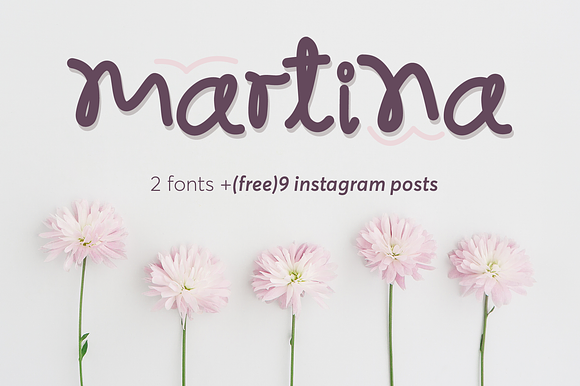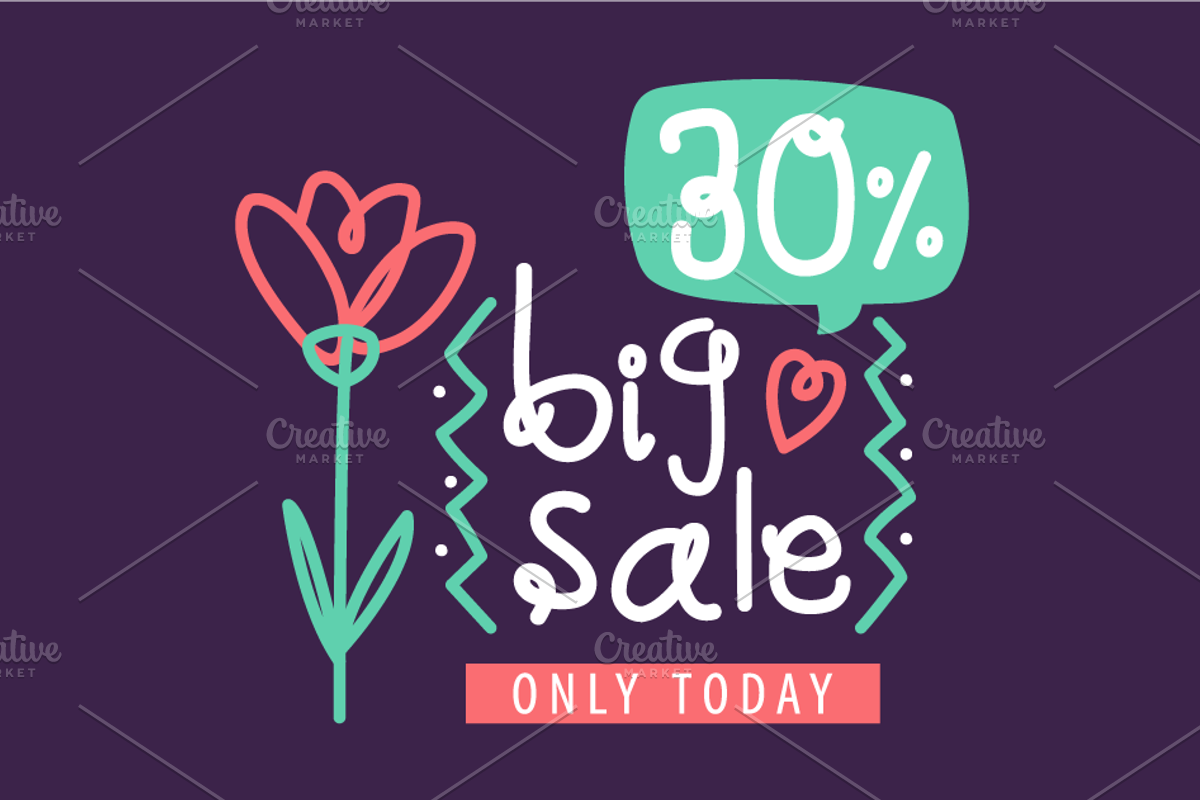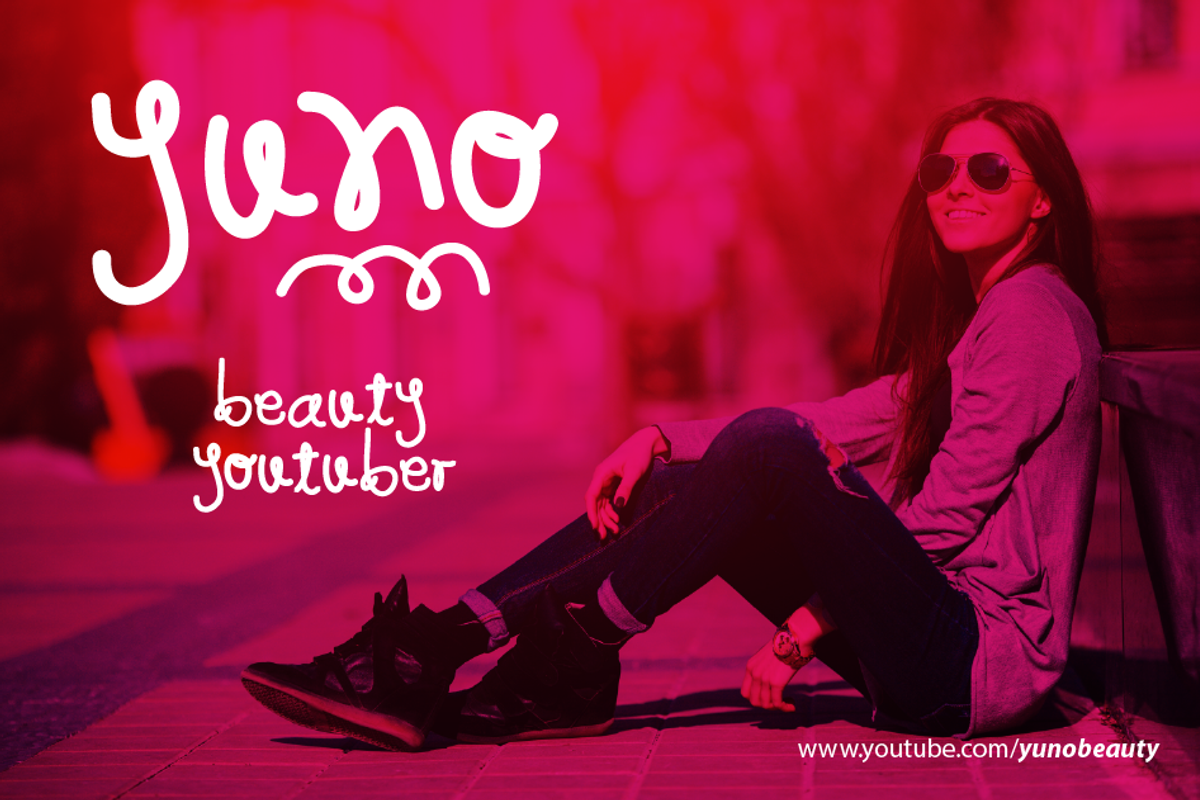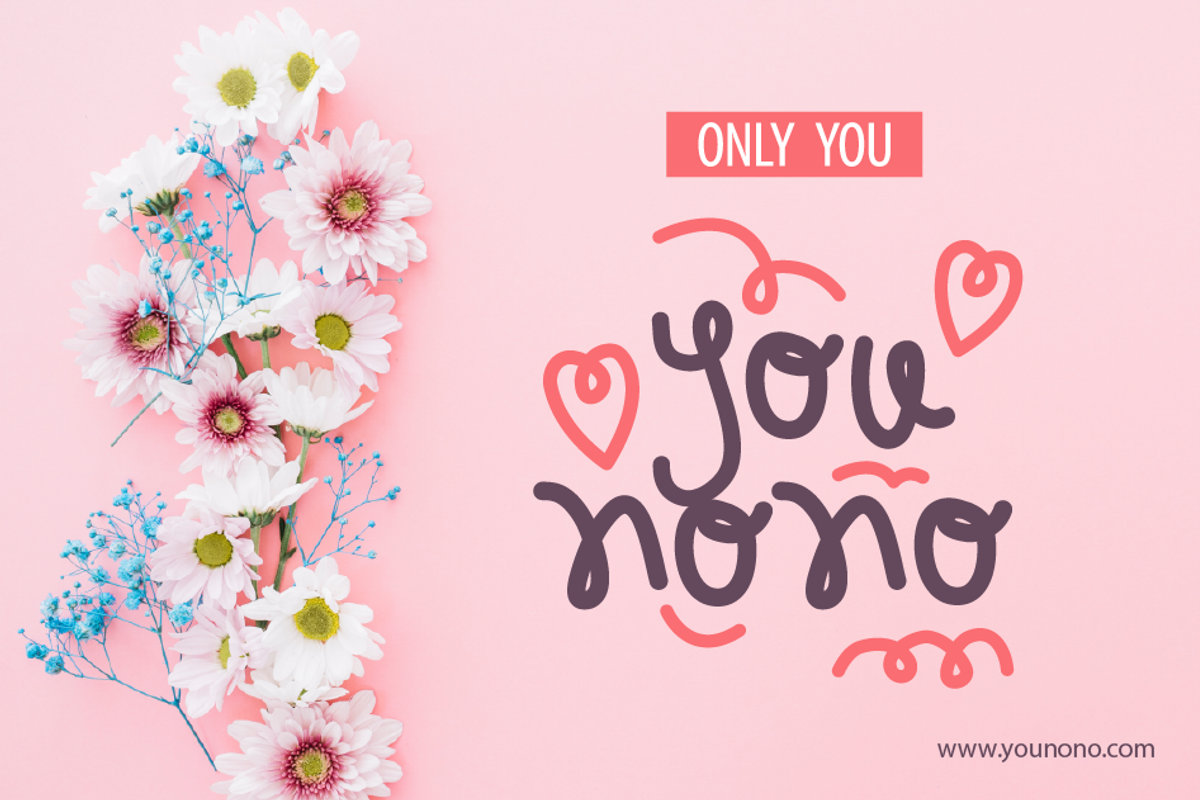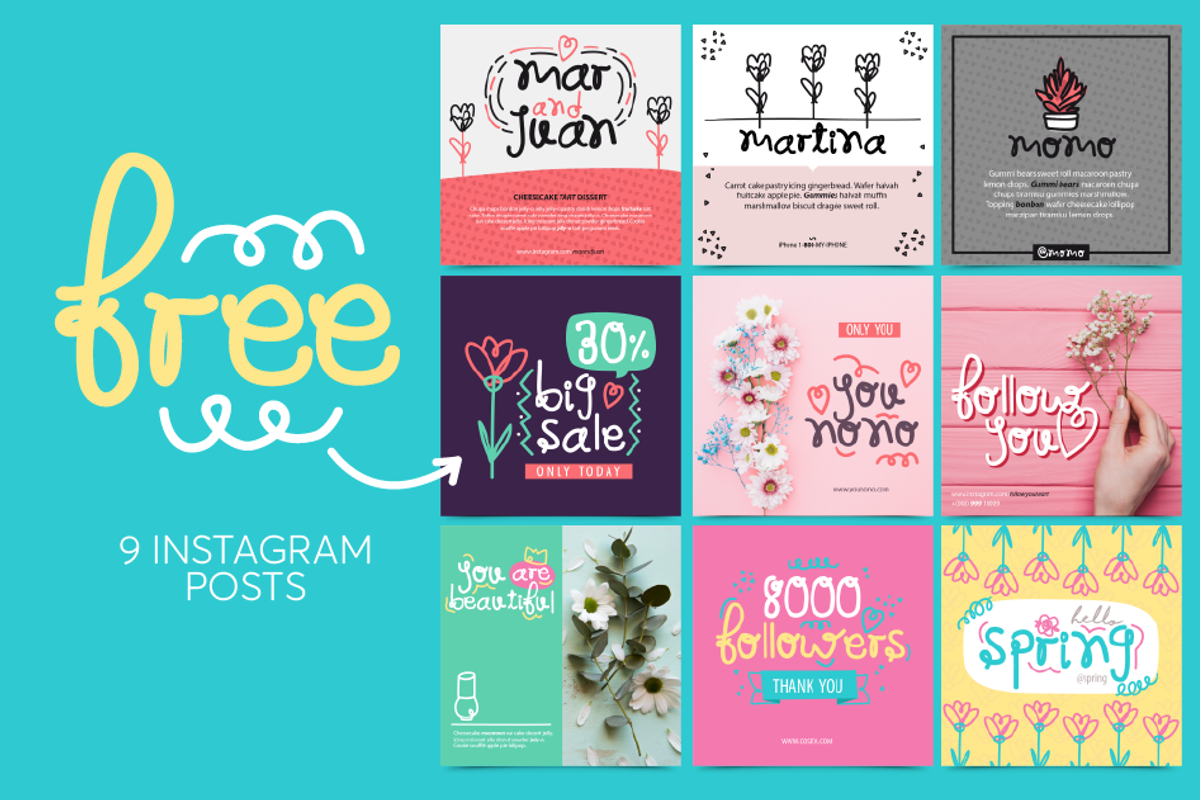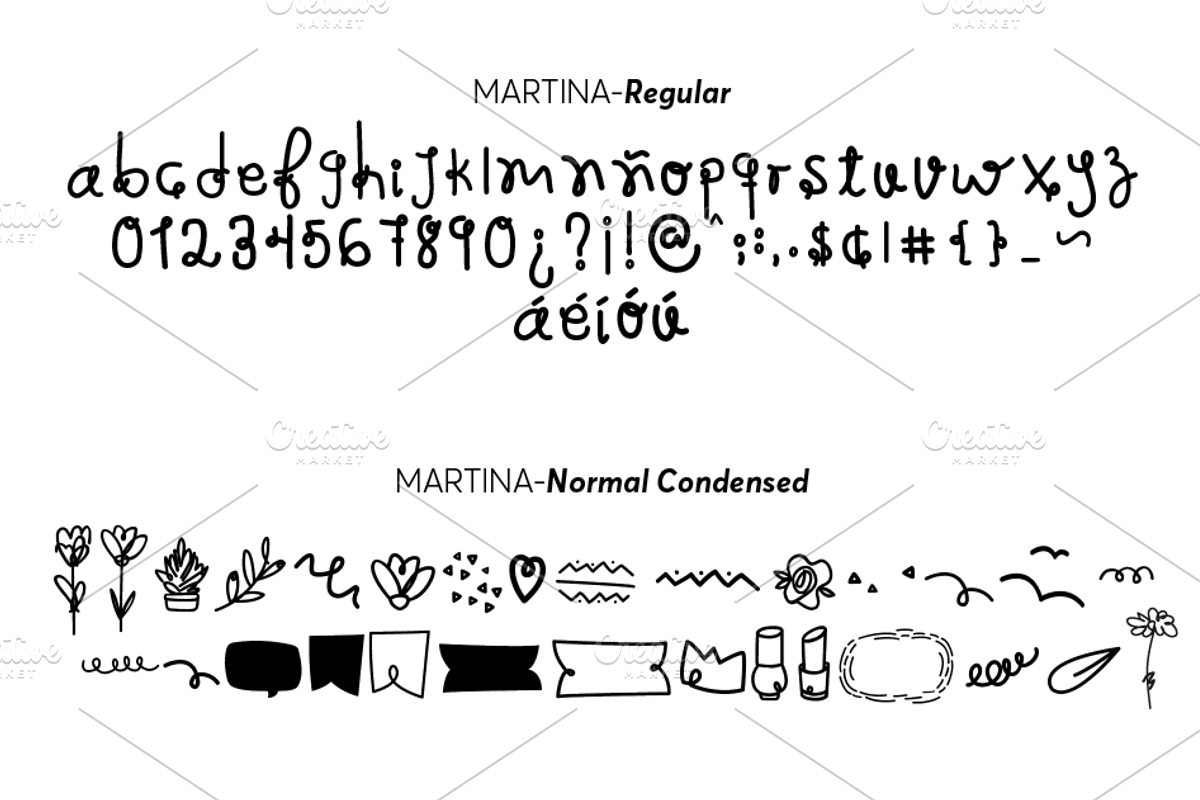
Martina font and 9 Instagram posts
Martina´s fonts by Himoki
- Martina Normal Condensed
- Martina Regular
Why Martina font and 9 Instagram posts is worth a look
Martina font and 9 Instagram posts by himoki fits naturally into Branding, posters, packaging, typography.